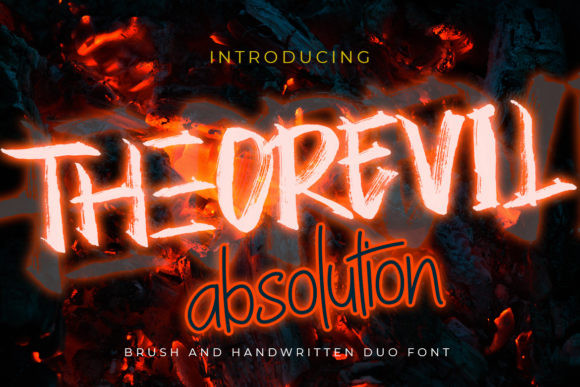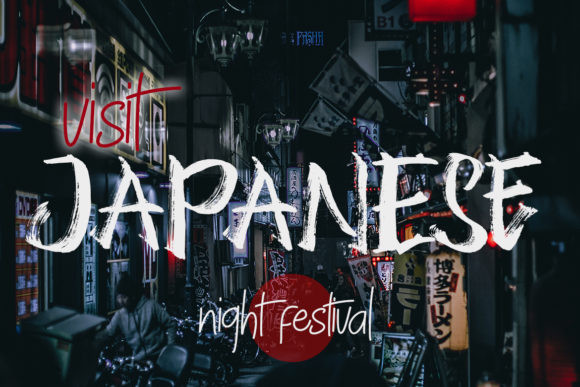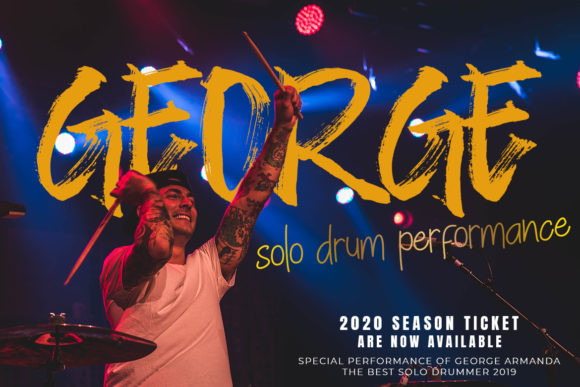
Theorevil Absolution Font
Theorevil Absolution is a free style brush and handwritten font duo. The combination of these fonts will give any design a mystical, casual and strong feel!